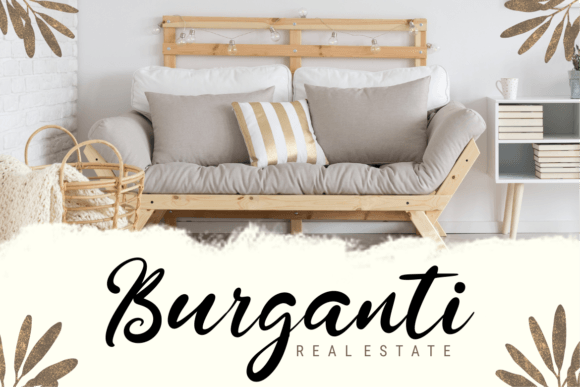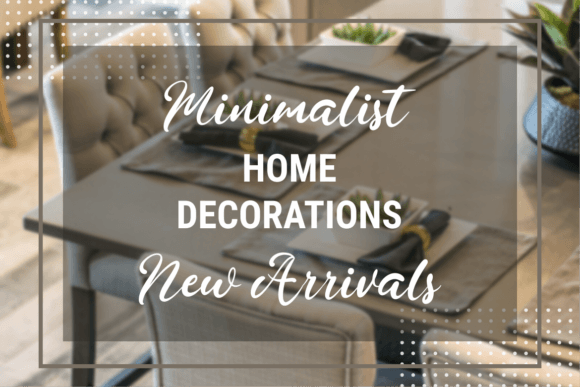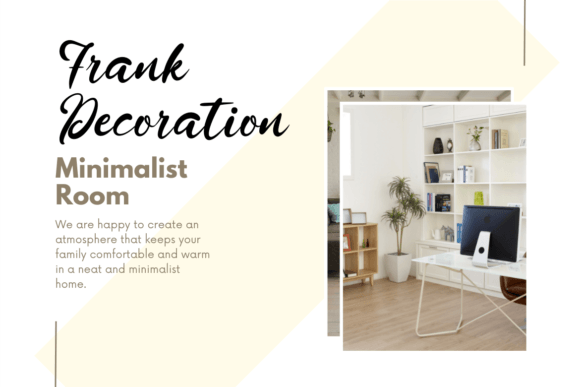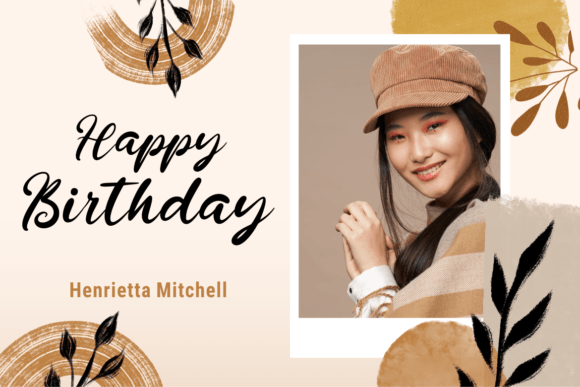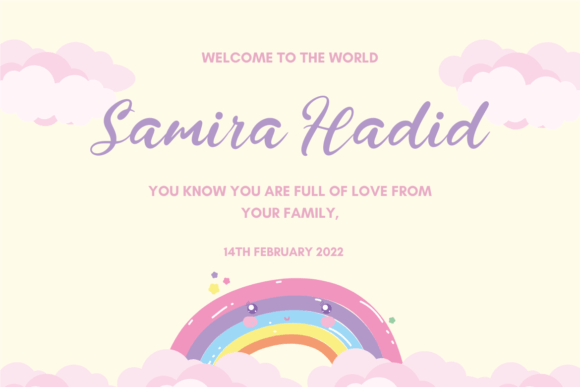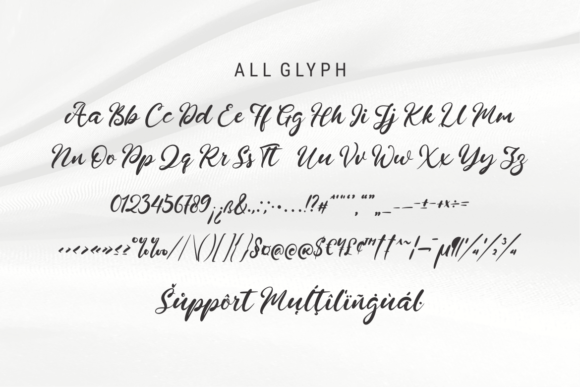
Introduction to Frank Brilliant Font
Have you ever stumbled upon the perfect design element that elevates your creative project to the next level? For designers, that ‘aha’ moment is priceless. It’s the spark that ignites a new idea, a fresh perspective, or a bold statement. For many, that moment comes when they discover the right font – one that exudes elegance, sophistication, and a hint of whimsy. The Frank Brilliant Font is one such treasure that can bring a touch of romance and charm to any design.
This delicate, simple, and stylish handwritten font is a design resource that can be used across a wide range of applications, from greeting cards to headlines. With its high-quality design and transparent background, it’s perfect for designers looking to add a personal touch to their creative project.
Key Features of Frank Brilliant Font
- Unique characteristics: The Frank Brilliant Font features a bold, modern design with a touch of elegance, making it perfect for a variety of creative projects.
Honest Review: Frank Brilliant Font
I recently had the chance to work with the Frank Brilliant Font and I must say it’s been a pleasant experience. As a designer, I’m always on the lookout for high-quality design resources that can elevate my creative projects.
- ✨ The font’s transparent background makes it easy to overlay on different images and designs.
- ✨ The font is highly customizable, allowing me to adjust the size, color, and style to fit my project’s needs.
However, there are a few limitations I’d like to mention:
- ⚠️ The font can be a bit too bold at times, making it difficult to read in certain contexts.
- ⚠️ The font doesn’t support all languages, which can be a limitation for international design projects.
Overall, I’m impressed with the Frank Brilliant Font and would definitely recommend it to designers looking for a high-quality, creative font for their next project.
Tips for Getting the Most Out of Frank Brilliant Font
Experiment with different font sizes and styles to create visually appealing text. Use Frank Brilliant Font in combination with other design elements to add depth and interest to your design.
Frank Brilliant Font is ideal for creative projects, such as logo designs, brochures, and infographics. Its high quality and transparent background make it a versatile design resource for a wide range of applications.